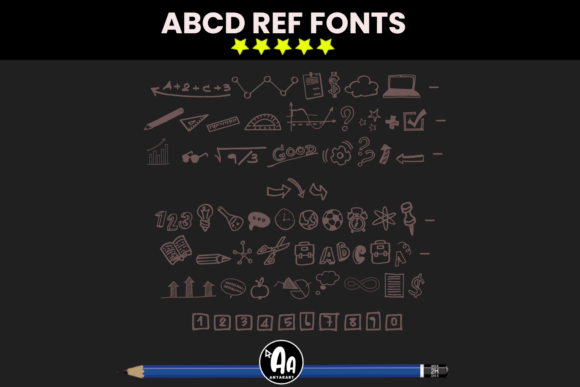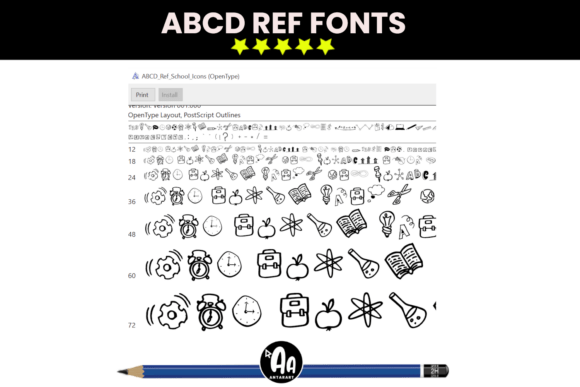
Introducing Abcd Ref School Icons Font: Elevate Your Educational Designs
Are you a teacher, educational creator, or designer looking for a fun and practical way to enhance your classroom décor, worksheets, and digital design projects? Look no further than the Abcd Ref School Icons Font. This innovative font features over 52 hand-drawn-style school icons and number symbols, designed in a delightful dingbat format that’s perfect for creating engaging and interactive educational resources.
What is Abcd Ref School Icons Font?
The Abcd Ref School Icons Font is a unique and versatile font that offers a wide range of school-themed icons and symbols. From classroom decorations to educational worksheets, this font is designed to make your design process easier and more efficient. With its extensive collection of icons, you can add a personal touch to your projects and make them more visually appealing.
Key Features of Abcd Ref School Icons Font
- Over 52 hand-drawn-style school icons: The font includes a vast array of school-themed icons, including symbols for classroom decorations, educational worksheets, and more.
- Number symbols: The font also includes number symbols, making it easy to create numbered lists, classroom labels, and other educational resources.
- Dingbat format: The font is designed in a fun and practical dingbat format, making it easy to use and customize.
Perfect for Educational Creators and Designers
The Abcd Ref School Icons Font is ideal for teachers, educational creators, and designers who want to create engaging and interactive educational resources. Whether you’re designing classroom décor, worksheets, student planners, printables, or digital design projects, this font has got you covered.
Use Cases for Abcd Ref School Icons Font
- Classroom décor: Use the font to create colorful and engaging classroom decorations, such as bulletin boards, posters, and labels.
- Educational worksheets: Add a personal touch to your worksheets and make them more visually appealing with the font’s school-themed icons.
- Student planners and printables: Create customized student planners, journals, and printables that are both fun and functional.
- Digital design projects: Use the font to create interactive digital design projects, such as educational games, quizzes, and presentations.
- Bulletin journals and flashcards: The font’s number symbols make it easy to create numbered lists and labels for bullet journals and flashcards.
Why Choose Abcd Ref School Icons Font?
So why choose the Abcd Ref School Icons Font? Here are just a few reasons:
- Unique and versatile: The font offers a unique and versatile collection of school-themed icons and symbols that can be used in a variety of educational settings.
- Easy to use: The font is easy to use and customize, even for those with limited design experience.
- Time-saving: The font’s extensive collection of icons and symbols saves you time and effort in designing educational resources.
- Perfect for back-to-school themes: The font is especially well-suited for education and back-to-school themes, making it a great addition to your design toolkit.
| Font Name | Abcd Ref School Icons Font |
| Author | AntarArt |
In conclusion, the Abcd Ref School Icons Font is a must-have for teachers, educational creators, and designers who want to create engaging and interactive educational resources. With its extensive collection of school-themed icons and symbols, this font is perfect for classroom décor, worksheets, student planners, printables, and digital design projects. So why wait? Get creative with the Abcd Ref School Icons Font today and take your educational designs to the next level!